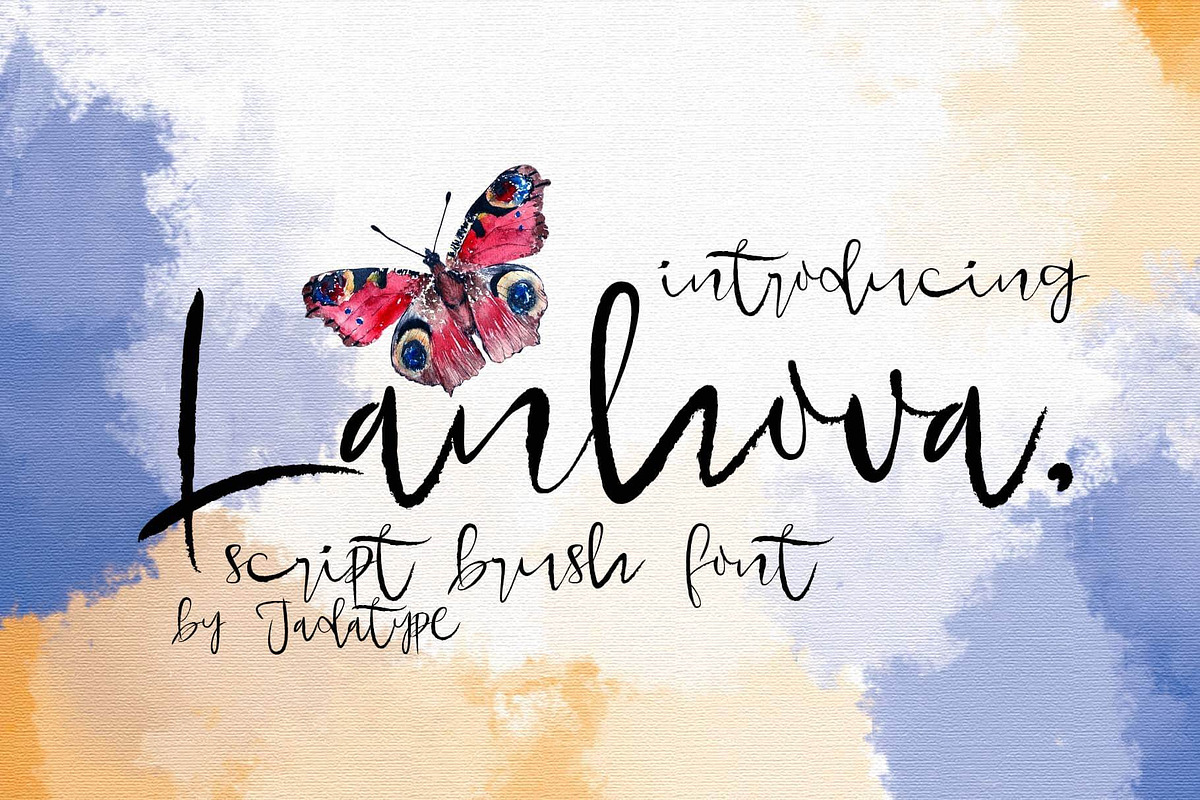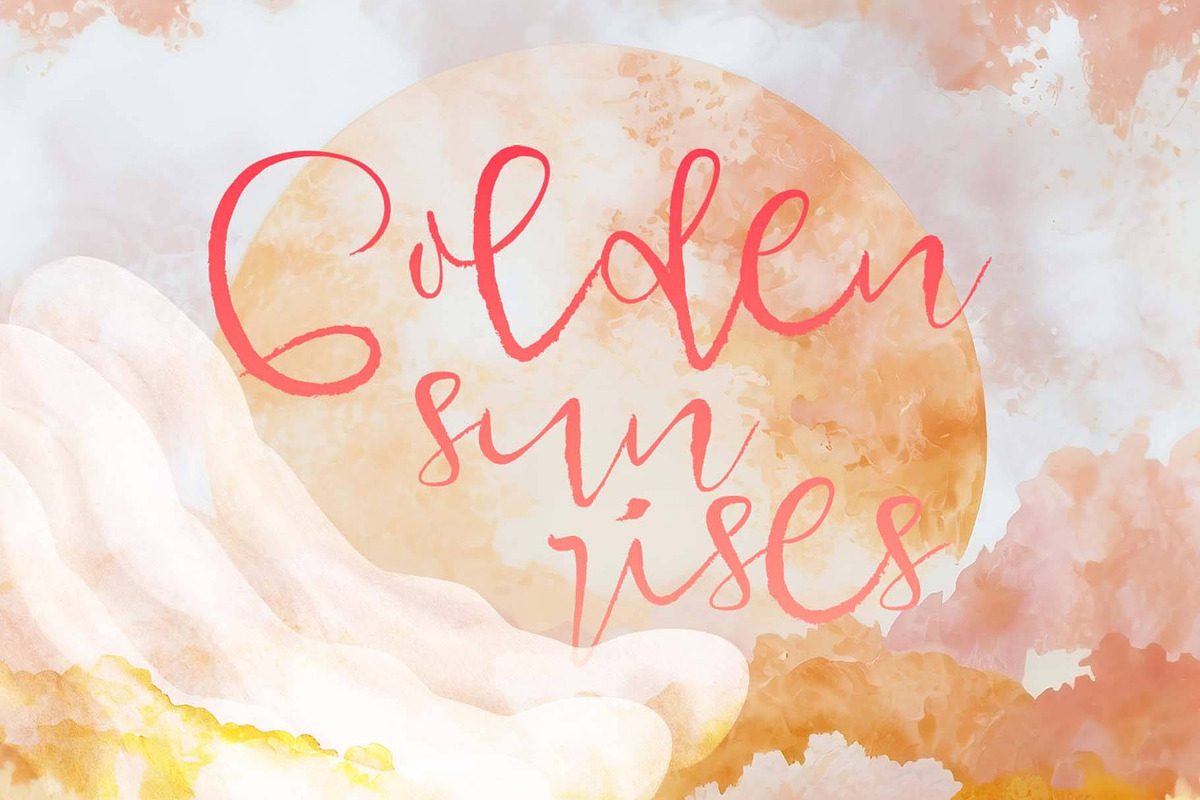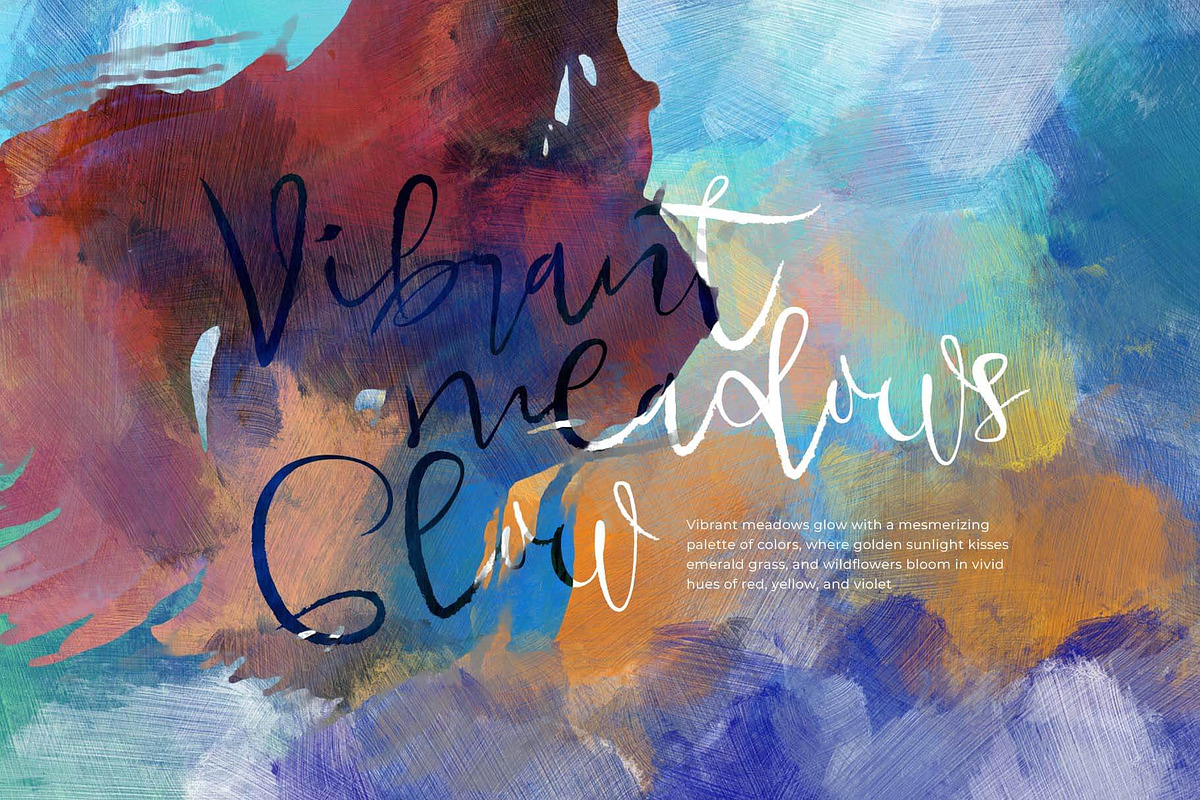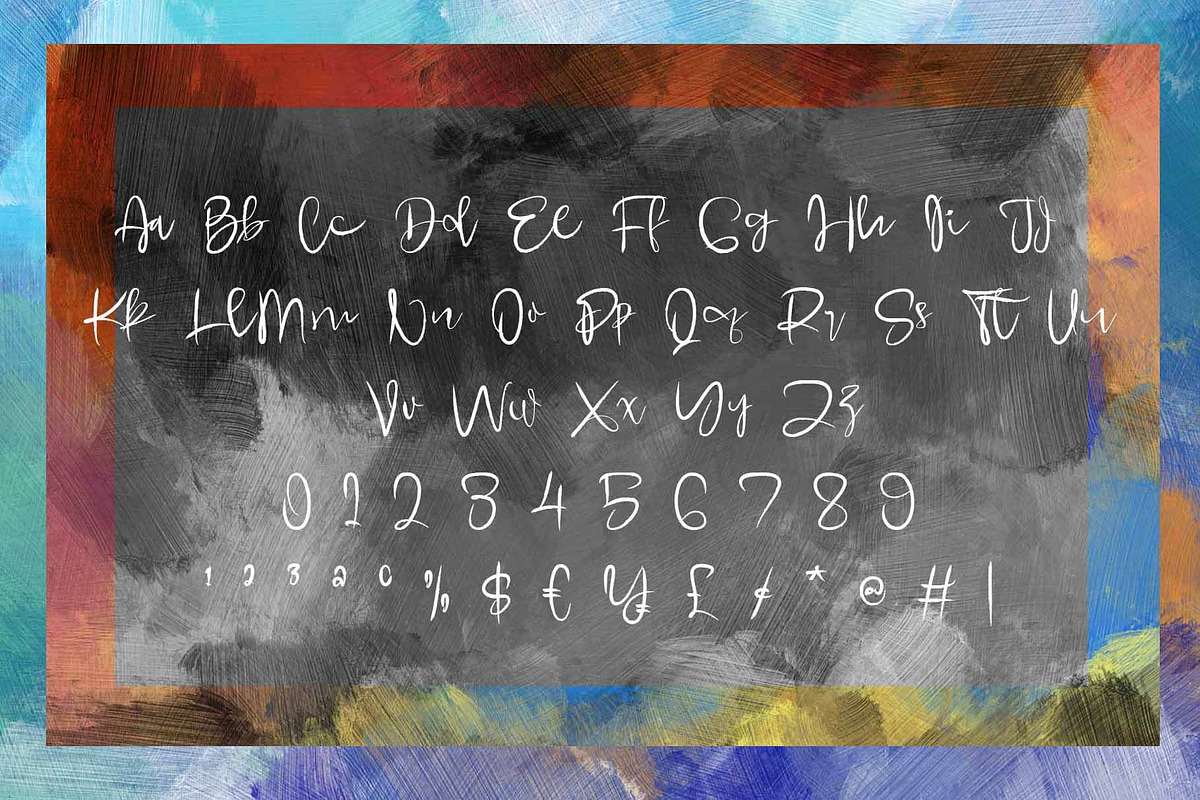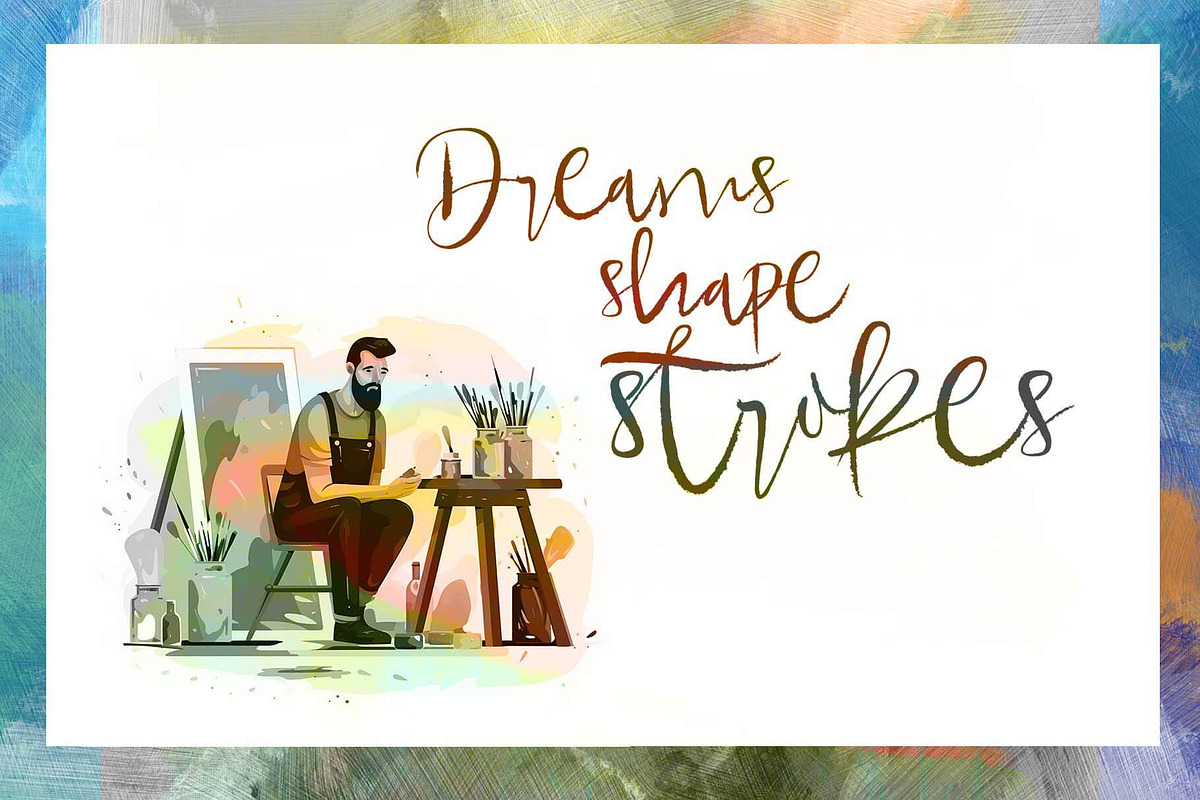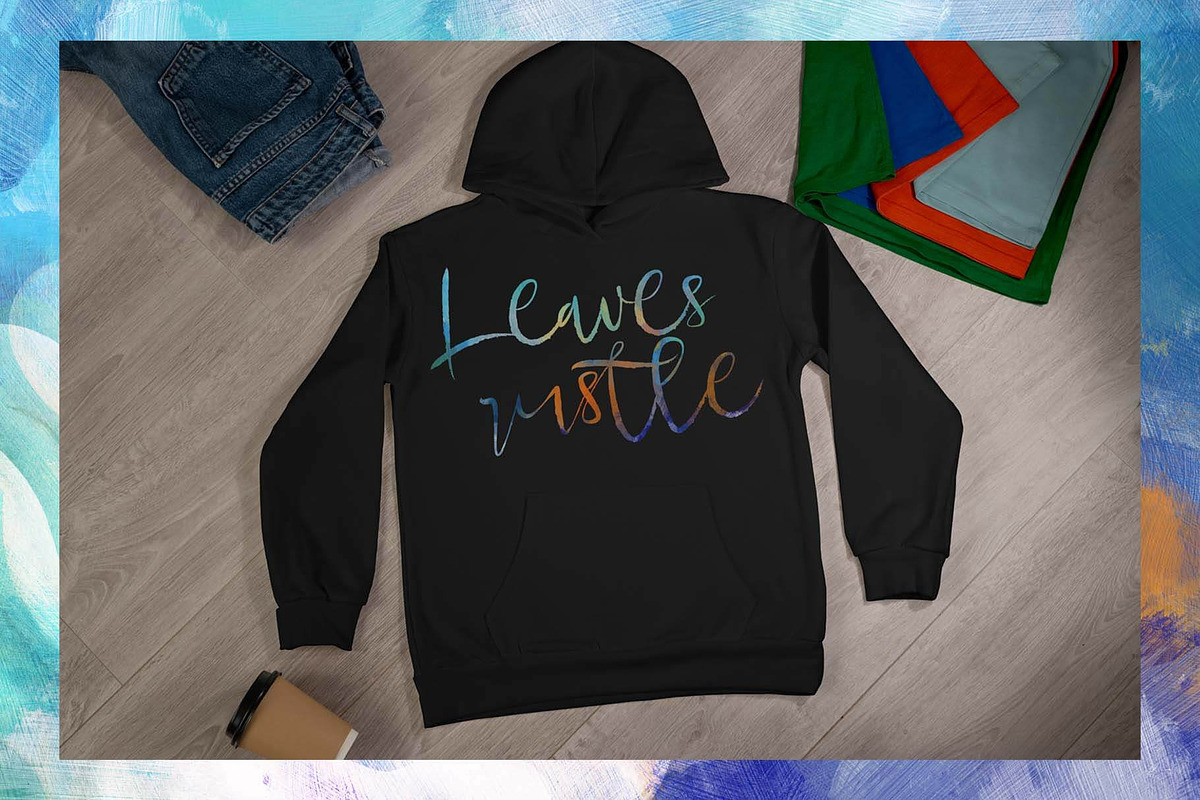
Lanhova | Brush Script
anhova is a handwritten brush font with script style. suitable for your branding, product, logotype, events, and others. Lanhova contains standard English letters and several letters that support multilingualism. Can be installed in design applications such as the adobe family or affinity, Lanhova is ready to support your designs!